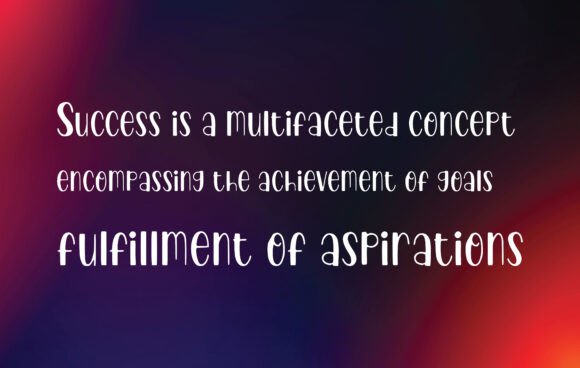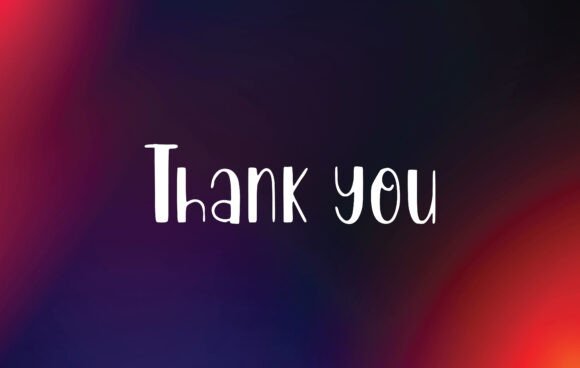
Introduction to Keaton Font
As designers, we’ve all been there – staring at a blank canvas, trying to bring our creative ideas to life. The right font can make all the difference, and that’s where the beautiful Keaton Font comes in. This stunning handwritten font is the perfect addition to any design project, from eye-catching logos to memorable branding and quotes.
With its lovely and unique aesthetic, the Keaton Font is a valuable resource for designers looking to elevate their creative projects. Whether you’re working on a free download or a high-end design, this font is sure to impress. Plus, its transparent background makes it easy to customize and pair with other design elements.
Key Features of Keaton Font
- Unique and stylish font with transparent background, ideal for overlaying on images or videos
- Perfect for creating eye-catching titles, headings, and text overlays in creative projects, such as motion graphics and video editing
Honest Review: Keaton Font
As a designer, I’m always on the lookout for high-quality design resources to elevate my creative projects. Recently, I had the chance to try out the Keaton Font, and I’m excited to share my honest review.
What works well: ✨ The Keaton Font is incredibly versatile, making it perfect for a wide range of design applications. Its clean and modern aesthetic lends itself well to creative projects, from branding and logos to digital products and packaging. The font also comes with a transparent background, which is a huge plus for designers who need to work with complex compositions.
Some notable features of the Keaton Font include:
- High-quality design that’s perfect for print and digital projects
⚠️ However, one limitation of the Keaton Font is its limited character set. While it’s not a deal-breaker, it may not be suitable for designers who need to work with a wide range of languages or character sets.
Overall, I’m impressed with the Keaton Font, and I would definitely recommend it to designers who are looking for a high-quality, versatile font for their creative projects.
Tips for Getting the Most Out of Keaton Font
For the best results, use the Keaton Font on a transparent background to create a clean and professional look. You can also experiment with different font sizes and colors to add visual interest to your design.
The Keaton Font is ideal for use in creative projects such as logos, business cards, and brochures. Its high-quality design and transparent background make it a versatile and effective design resource.